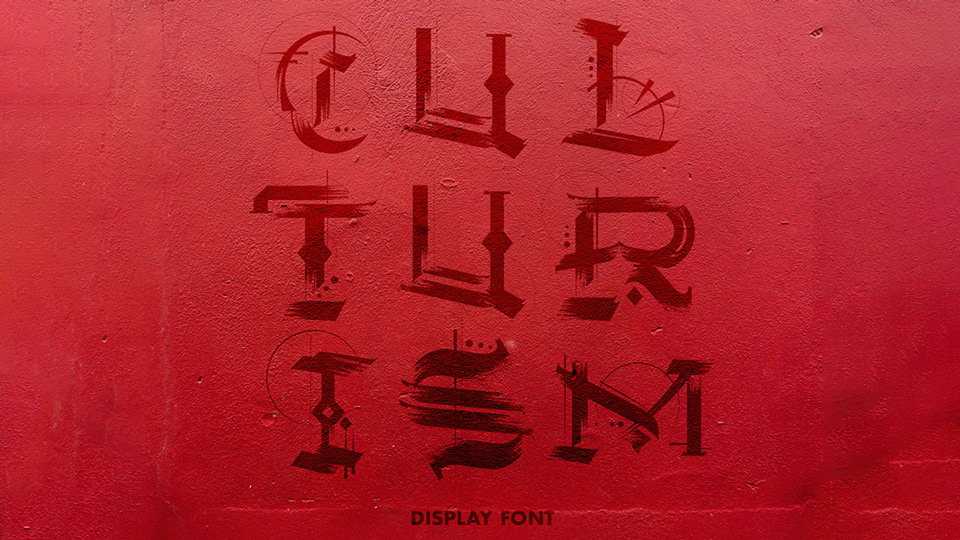
Download Culturism font, typeface that combines both hand style technique and modern technologies together. Culturism inspired by the idea found in Pokras Lampas’ calligraphic works of how futuristic typography will connect all cultures.